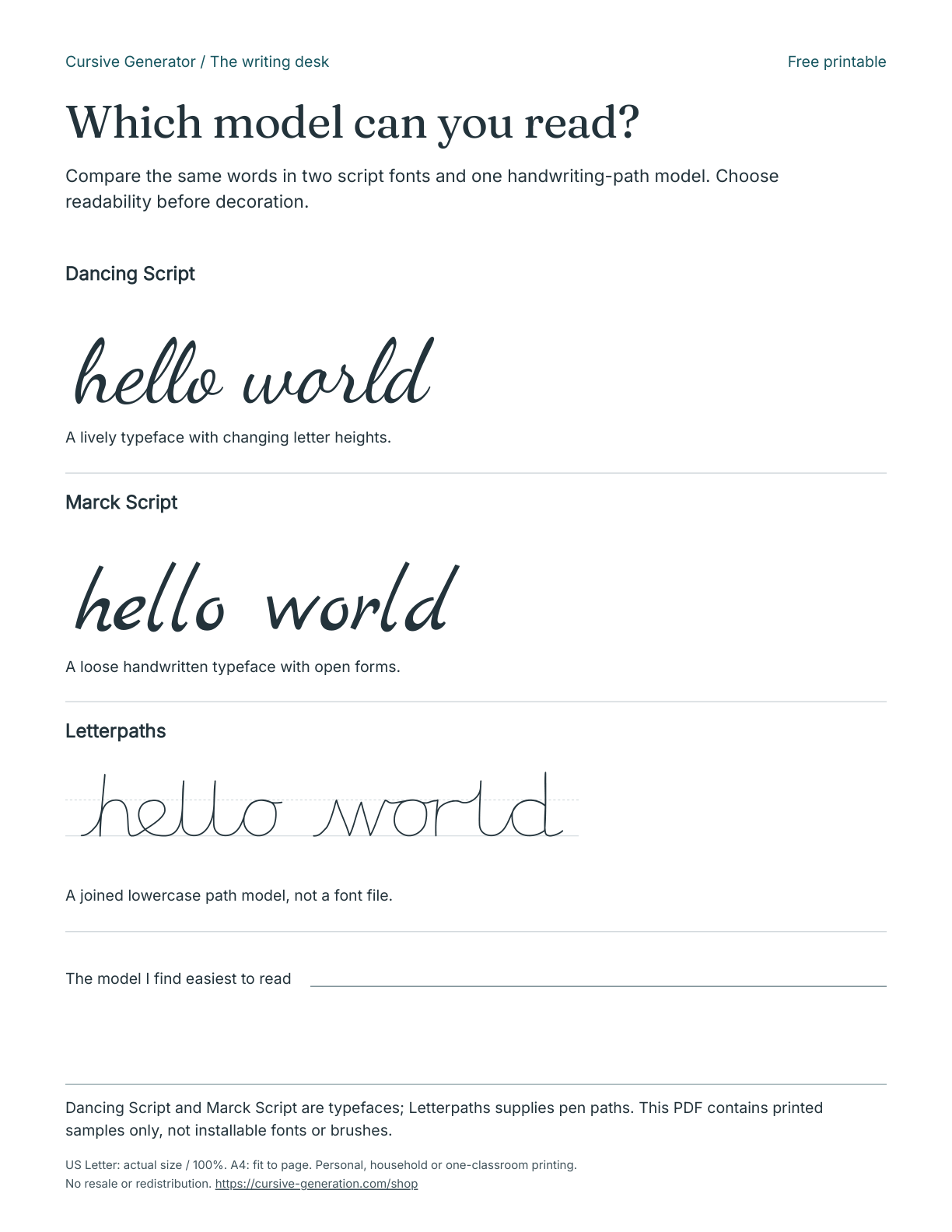
Which model can you read? - Free Printable
Printed style comparison
Compare the same words in two script fonts and one handwriting-path model. Choose readability before decoration. One-page US Letter PDF digital download.
- Compare the same words in two script fonts and one handwriting-path model. Choose readability before decoration.